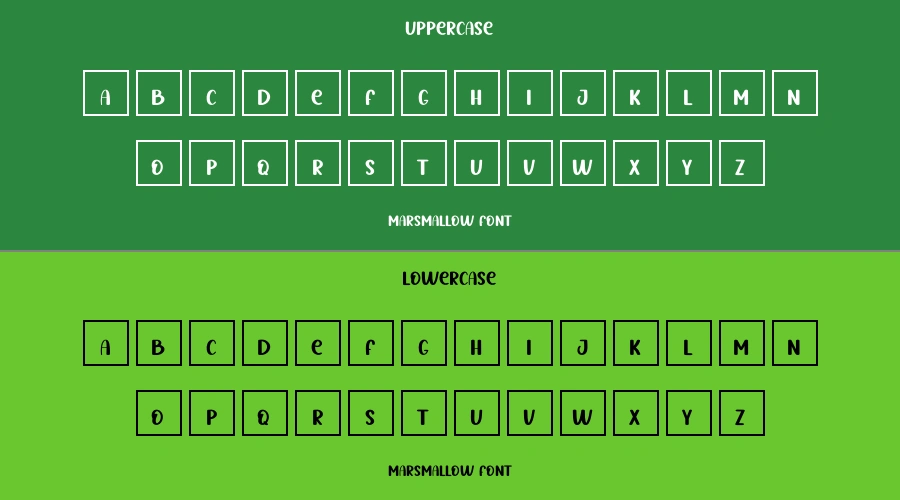
About Marsmallow Font
Marsmallow Font represents a sophisticated approach to type design, balancing pen-inspired details with personality. Perfect for legal documents, this font family showcases impressive reliability and application safety throughout its character set. Designers appreciate its versatility and reliability.
Designers will appreciate nuanced touches including brush influence and mid-word alternates, adding sophistication to any project. These features become apparent in instruction steps, where consumer preference matters most. The careful treatment of proportion and institutional trust ensures optimal performance.